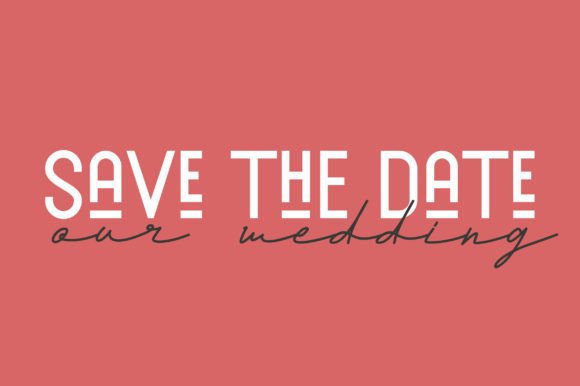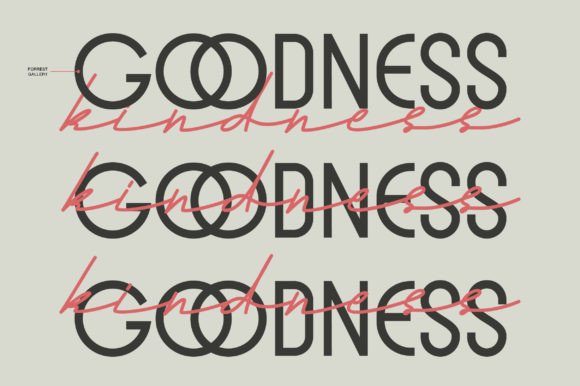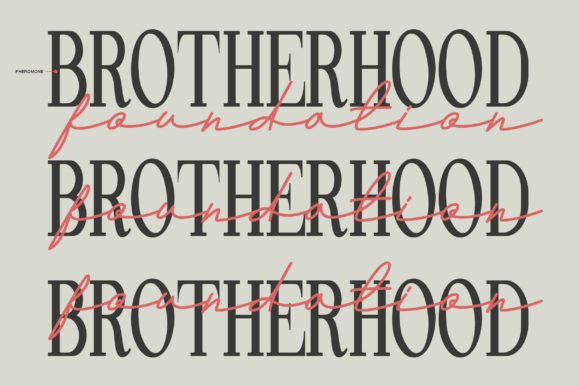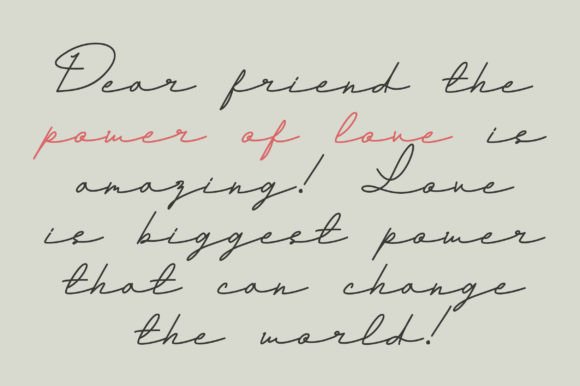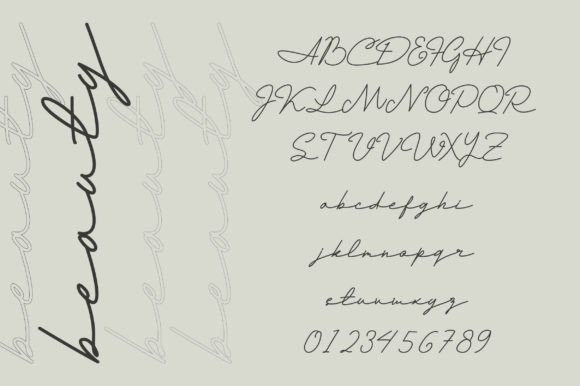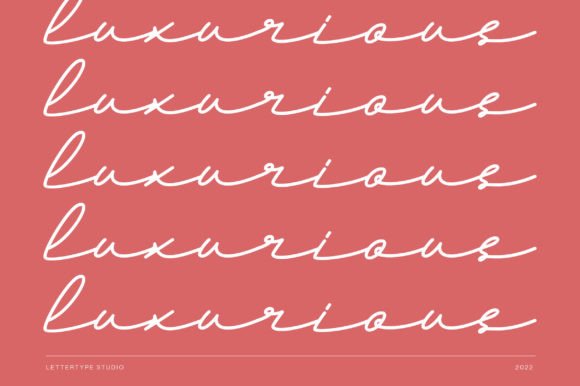
The Perfect Touch of Elegance: Unveiling the Andalusia Font
Have you ever found yourself scribbling down ideas in the middle of the night, only to realize that your messy handwriting is the perfect representation of your creative chaos? We’ve all been there. But what if you could bottle up that same energy and turn it into a beautiful, sophisticated font that elevates your designs to the next level?
Enter the Andalusia Font, a stunning monoline script that combines natural elegance with a stylish, inky flow. This signature-style font is perfect for designers who want to add a touch of handwritten charm to their work, whether it’s a photography project, a social media post, or a wedding invitation. With its unique curves and flowing lines, the Andalusia Font is a valuable asset for any designer looking to add a personal touch to their designs.
Andalusia Font Key Features
- Unique Characteristics: Elegant, cursive script with intricate details and flourishes, suitable for formal and creative purposes
Review of Andalusia Font
Overall, I’m quite fond of the Andalusia font. It has a certain charm to it that’s hard to resist.
- Unique character: Andalusia has a distinct personality that sets it apart from other fonts.
- Legibility: Despite its intricate design, Andalusia remains readable, even at smaller sizes.
- Emotional connection: The font’s elegance and sophistication evoke a sense of luxury and refinement.
- Limited flexibility: Andalusia’s design may not be suitable for all types of content, particularly those requiring a more modern or playful feel.
- Size limitations: At very small sizes, the font can become difficult to read due to its intricate details.
- Lack of bold weights: The font’s range is somewhat limited by the absence of bold weights, which can make it less versatile.
Overall, Andalusia is a beautiful font that can add a touch of sophistication to any design. While it may have some limitations, its unique character and elegance make it a worthwhile choice for the right project.
Getting the Most Out of Andalusia Font
Use the Andalusia Font for titles, headings, and body text in formal and elegant designs.
Pair it with a serif font for a classic look or with a sans-serif font for a modern look.
Experiment with different font sizes and styles to create a unique and eye-catching design.
Formal business cards and letterheads
Luxury brand identities and packaging
Alternatives to Andalusia Font for Designers
Carolyna Pro is a modern script font with a touch of elegance. It’s ideal for use in luxury branding, invitations, and high-end publications. Compared to Andalusia Font, Carolyna Pro has a more refined and sophisticated look, making it perfect for projects that require a touch of luxury.
Great Vibes is a beautiful script font with a relaxed, casual feel. It’s perfect for use in creative projects, such as social media graphics, advertisements, and packaging design. Compared to Andalusia Font, Great Vibes has a more laid-back and playful vibe, making it ideal for projects that require a fun and carefree atmosphere.
Alex Brush is a elegant script font with a touch of whimsy. It’s ideal for use in creative projects, such as branding, packaging design, and editorial design. Compared to Andalusia Font, Alex Brush has a more delicate and refined look, making it perfect for projects that require a touch of sophistication and elegance.
Dancing Script is a beautiful script font with a dynamic and playful feel. It’s perfect for use in creative projects, such as social media graphics, advertisements, and packaging design. Compared to Andalusia Font, Dancing Script has a more energetic and lively vibe, making it ideal for projects that require a lot of movement and energy.
Andalusia Font Creative Project Ideas
Design a vintage travel poster that showcases the beauty of Andalusia, Spain.